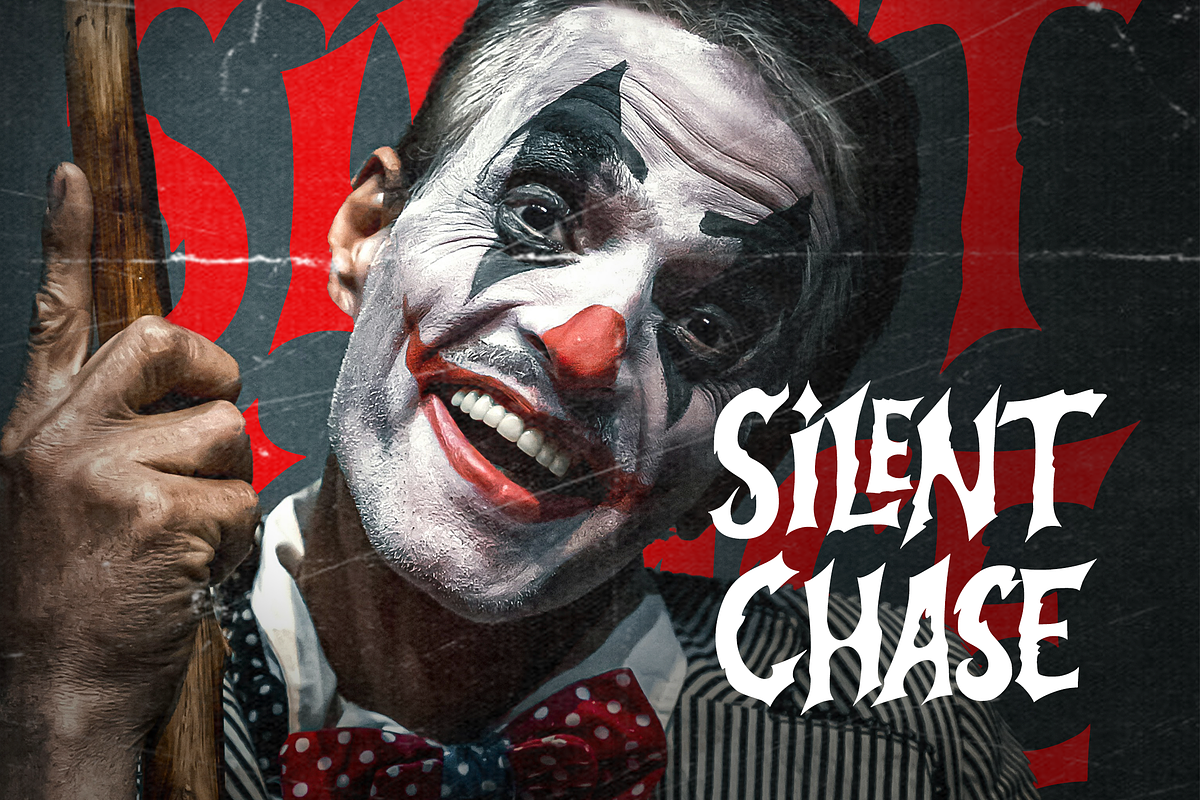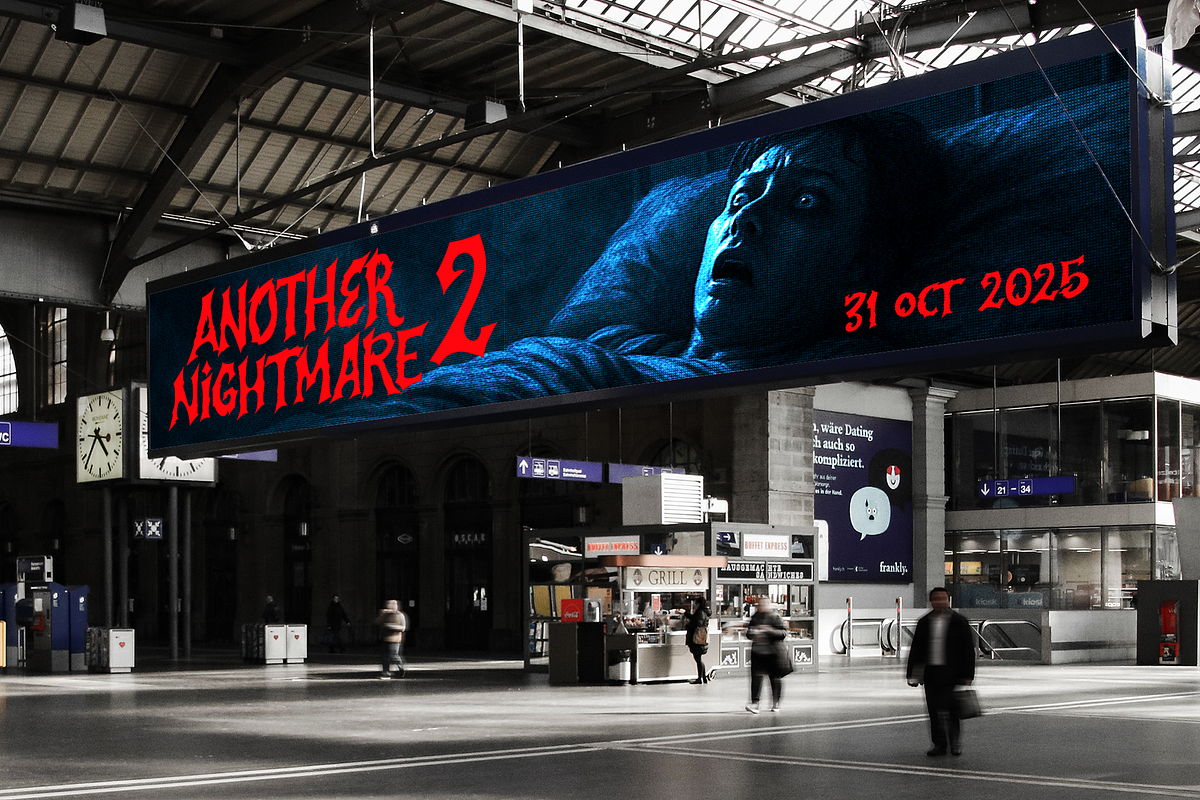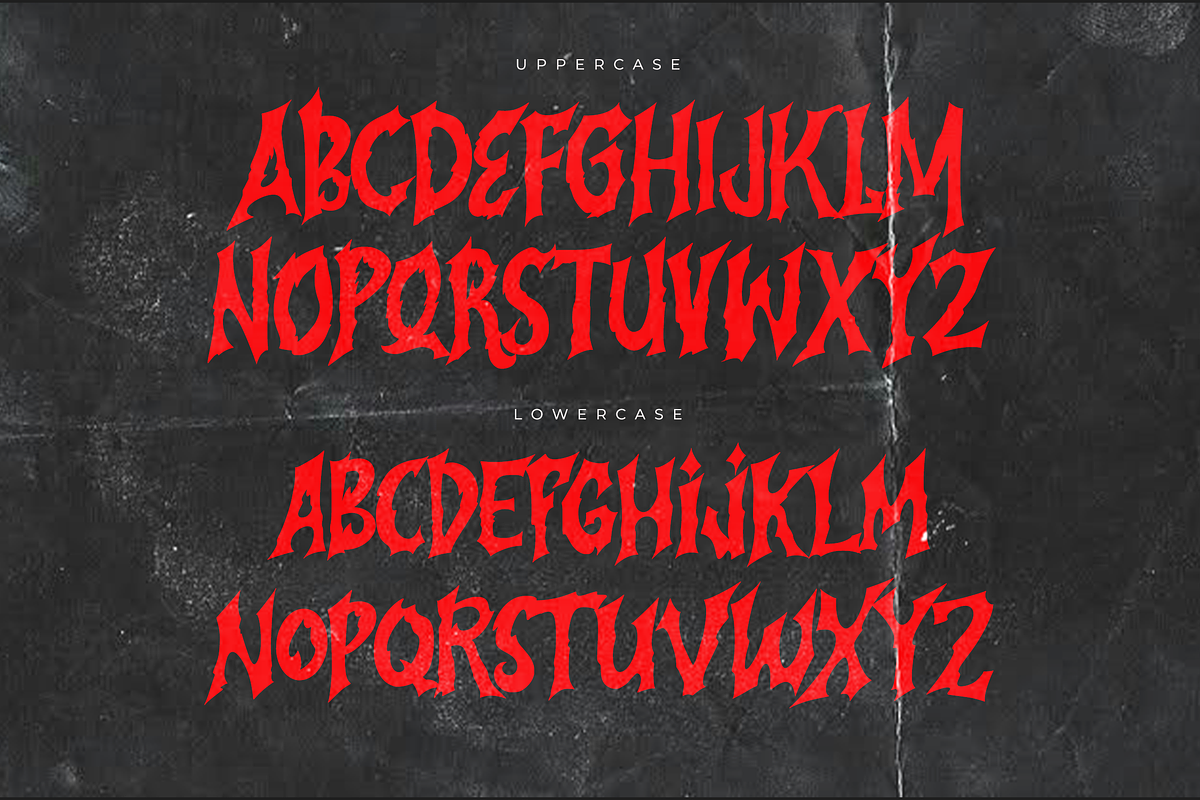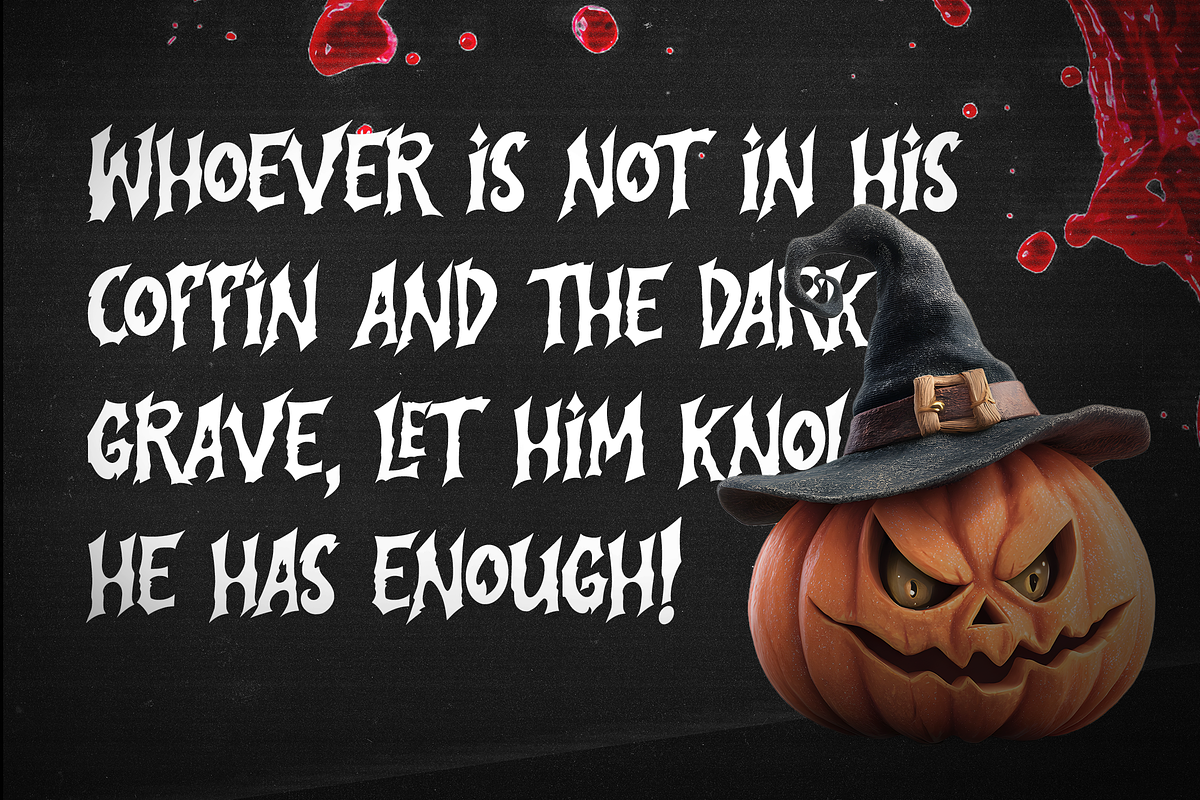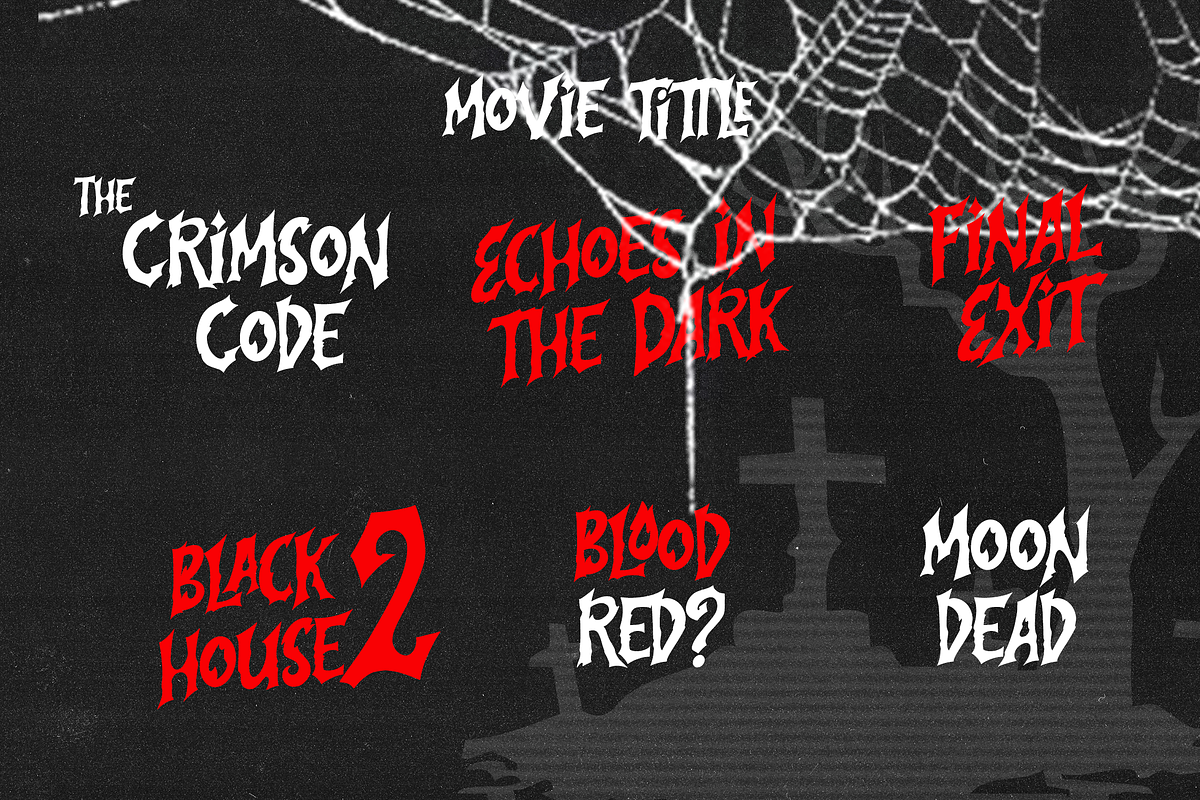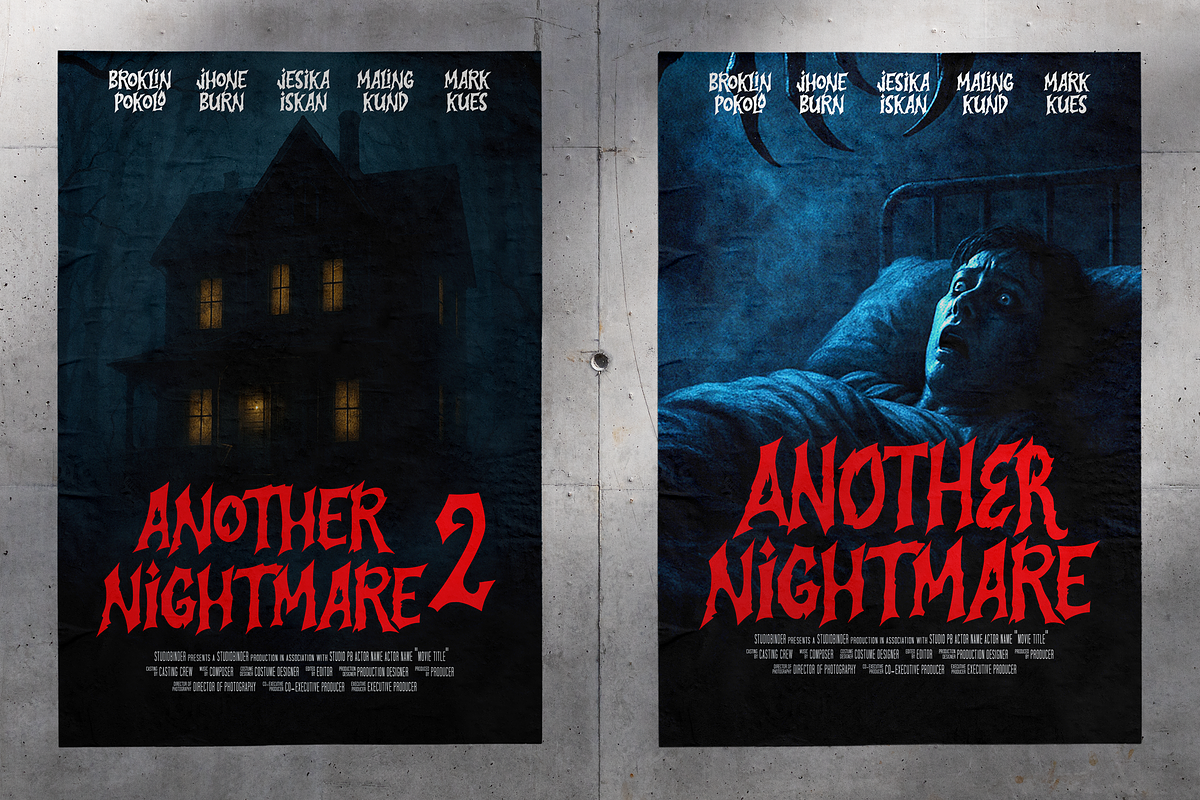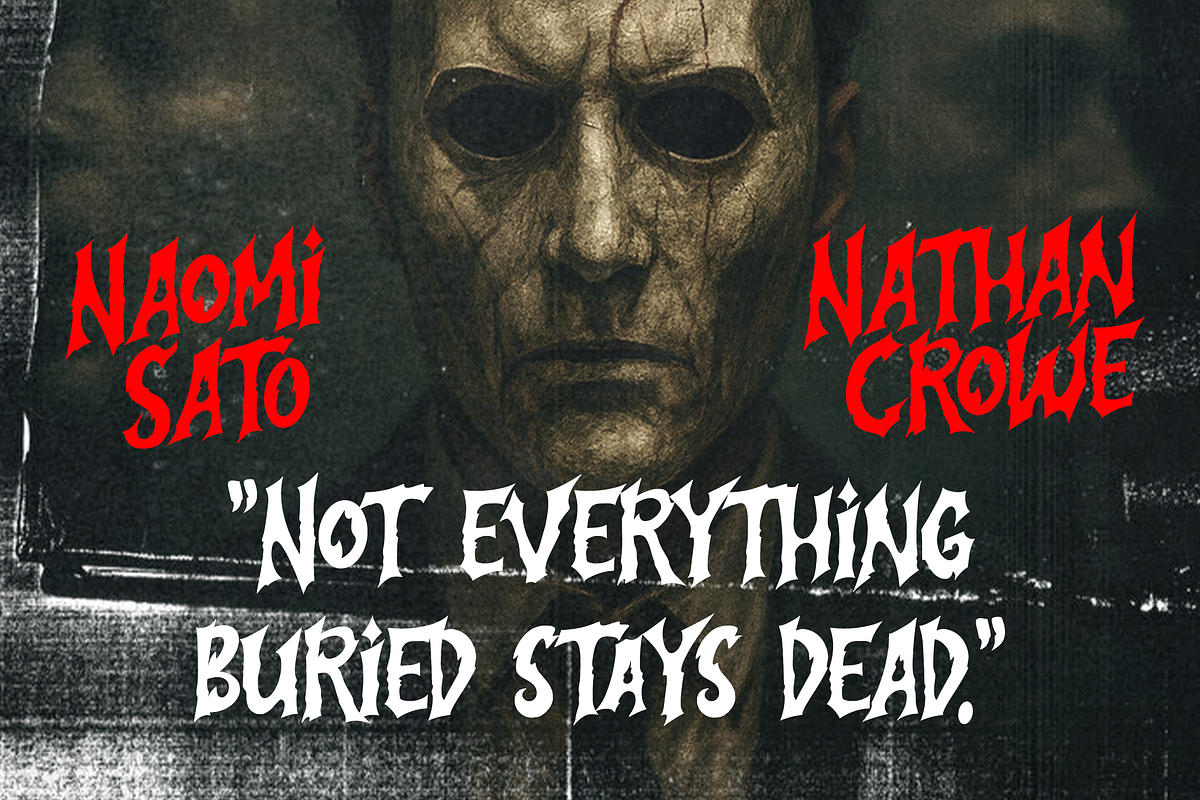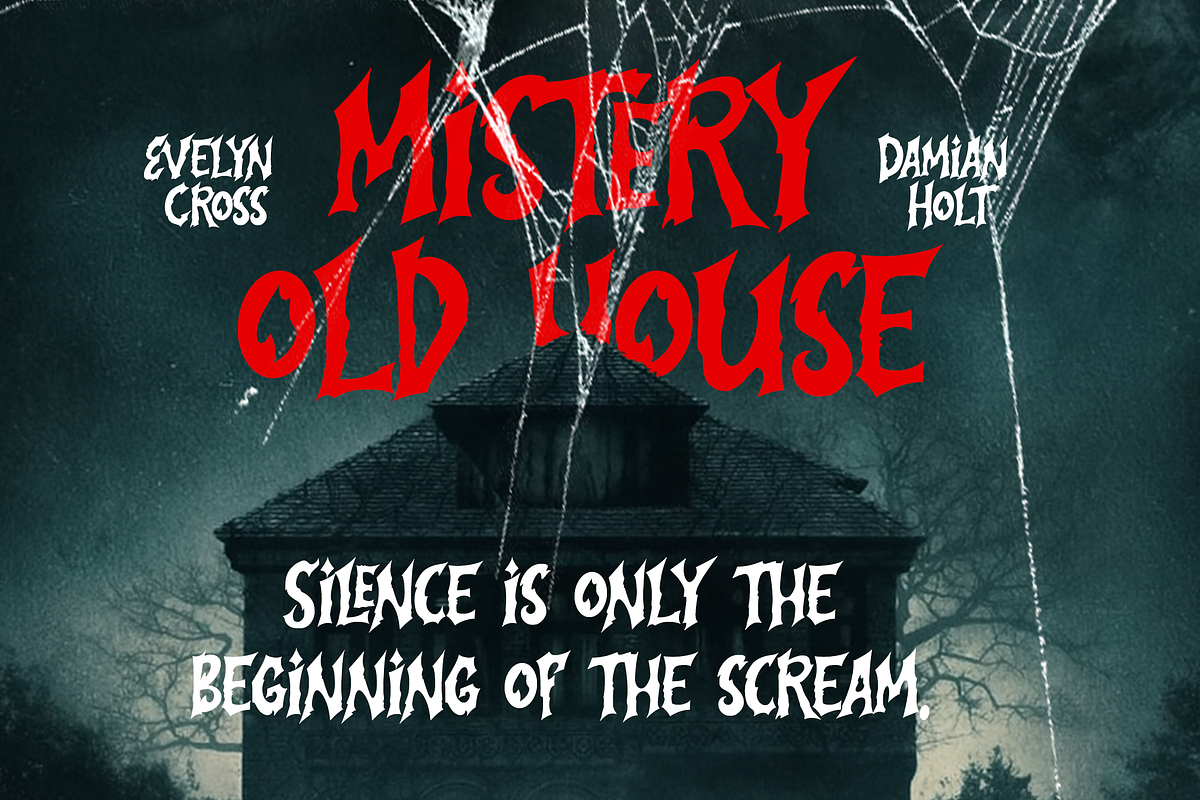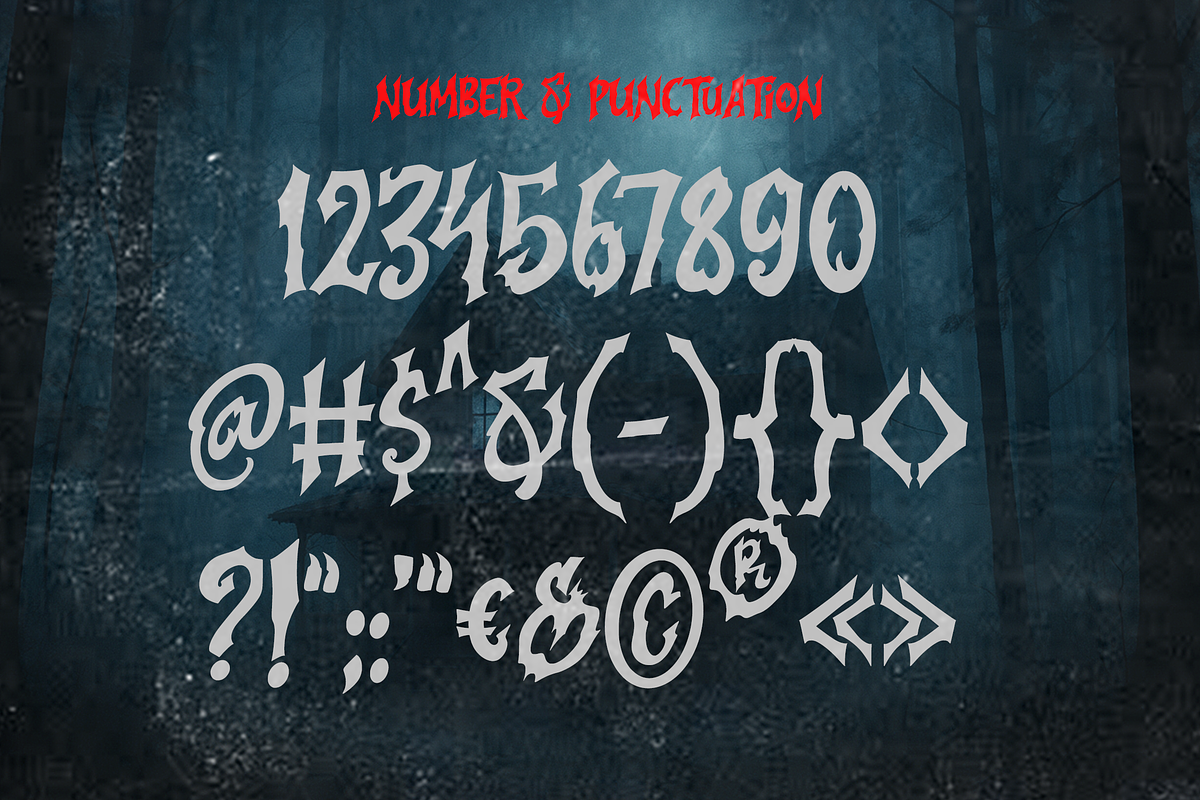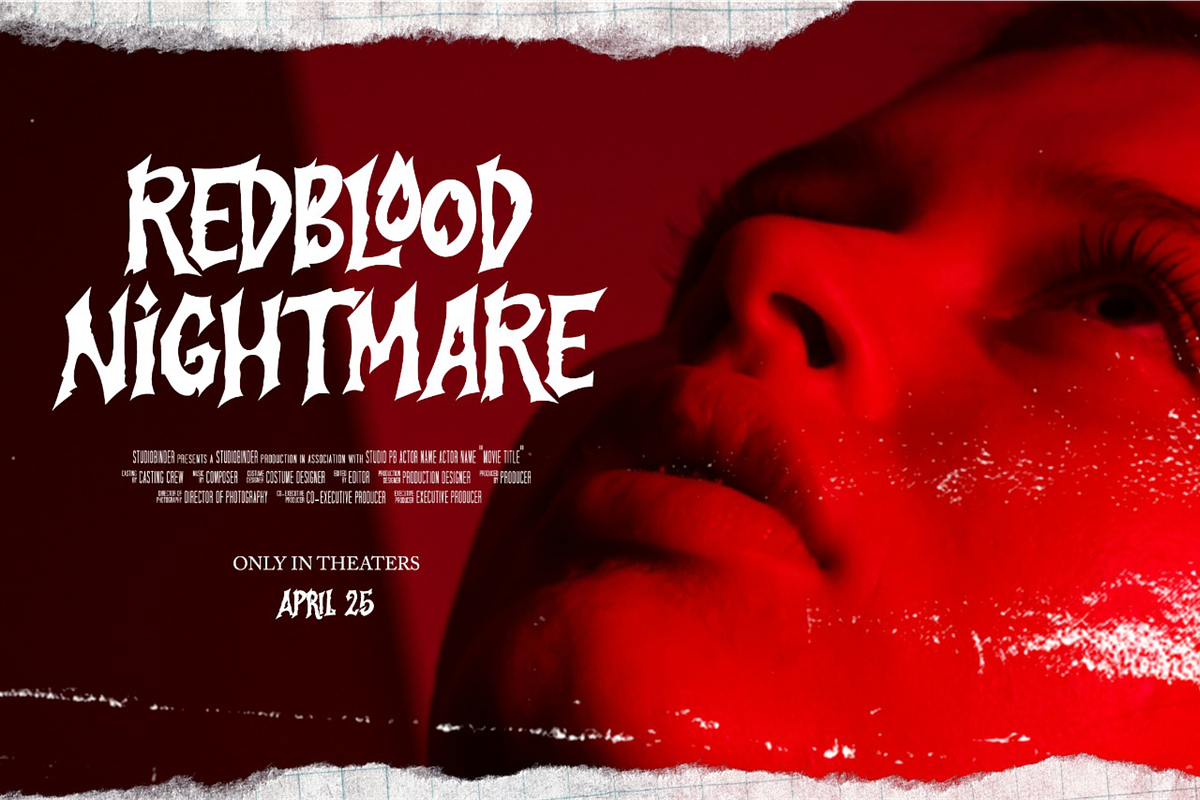
Another Nightmare
Another Nightmare is a darkly enchanting Horror font, cloaked in gothic terror and supernatural mystery. Its jagged, sinister strokes feel alive, Channeling whispers and haunted energy, it's perfect for horror posters, thriller titles, occult branding, Halloween events, and anything that craves a chilling touch.
Each letter drips with an atmosphere of dread, evoking witches’ spells, cursed forests, and shadows where monsters hide. From haunted party invites to sinister book covers, this font transforms ordinary designs into eerie masterpieces of fear and fascination. Whether you’re crafting a wicked spell poster, a gothic headline, or a nightmare-inspired display, Another Nightmare captures the essence of pure horror.
Another Nightmare comes in three (3) versatile styles: Regular, Outline, and Extrude, giving you creative freedom to mix, layer, and experiment.